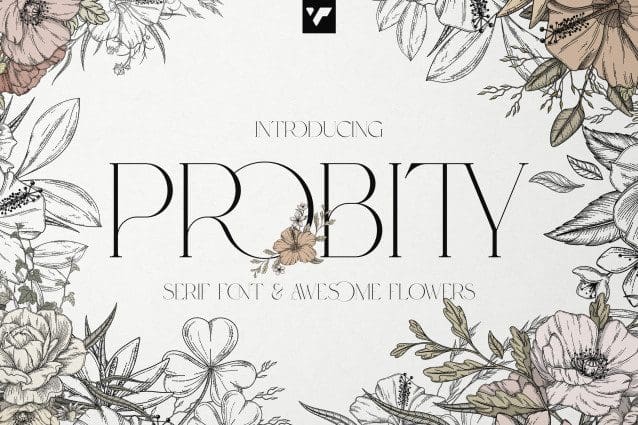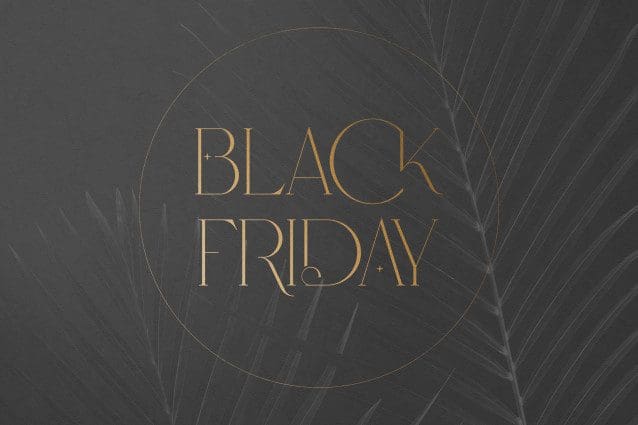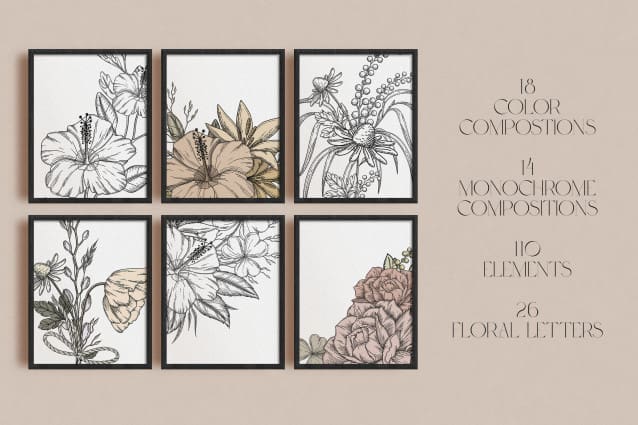
Probity Font
Probity font! This casual and creative typeface comes loaded with 95 language support, alternate & ligature glyphs plus clip art floral compositions and elements. From unique vintage logos to trendy Instagram posts or even special wedding invites; reinvent yourself every day thanks to its retro-nostalgic botanical illustrations which will create a powerful brand identity for any project you can think about.